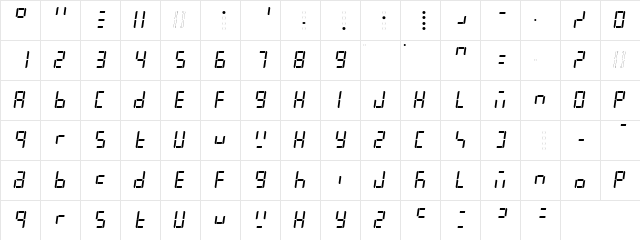
MyBlueRoom Regular
| Designer | William Richardson |
Design Context for MyBlueRoom Typeface
MyBlueRoom takes a measured approach to typography — its balanced proportions and neutral character make it a reliable workhorse for both digital and print work.